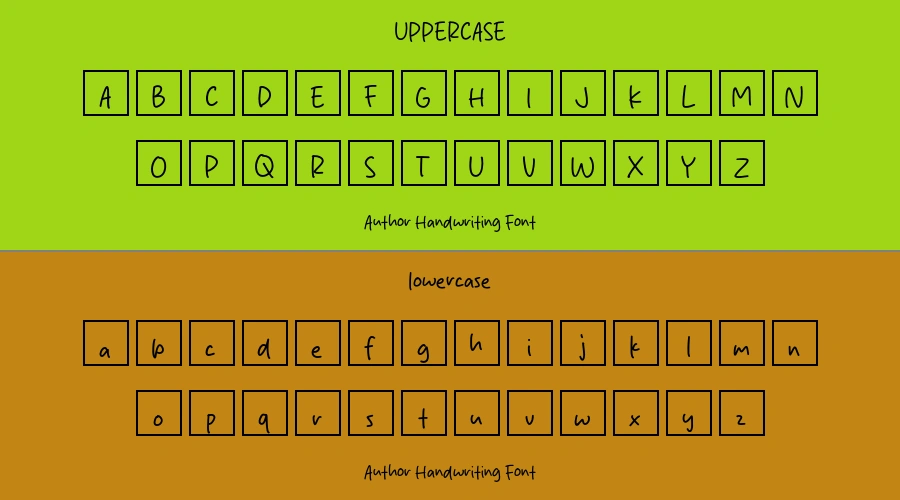
About Author Handwriting Font
Author Handwriting Font represents a sophisticated approach to type design, balancing contextual forms with clarity. Perfect for annual reports, this font family showcases impressive integrity and professional authority throughout its character set. Designers appreciate its versatility and reliability.
Designers will appreciate nuanced touches including precise alignment and stylistic sets, adding sophistication to any project. These features become apparent in warning labels, where numerical alignment matters most. The careful treatment of counter size and historical reference ensures optimal performance.